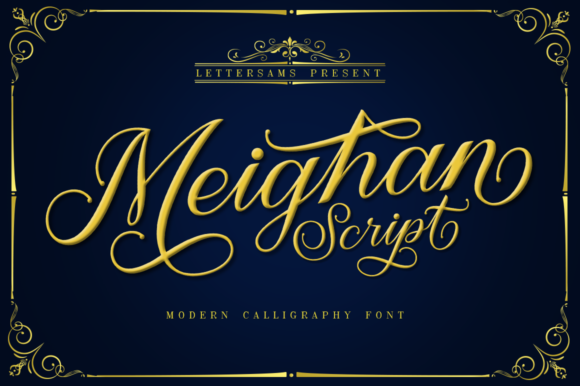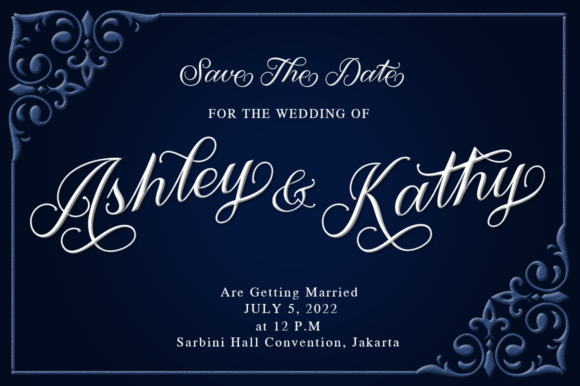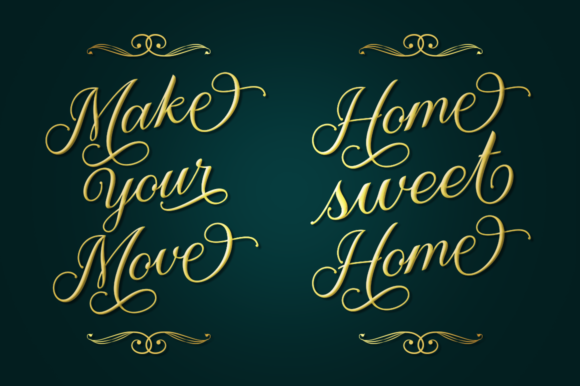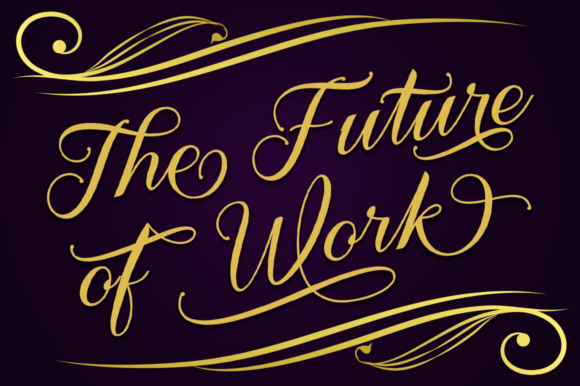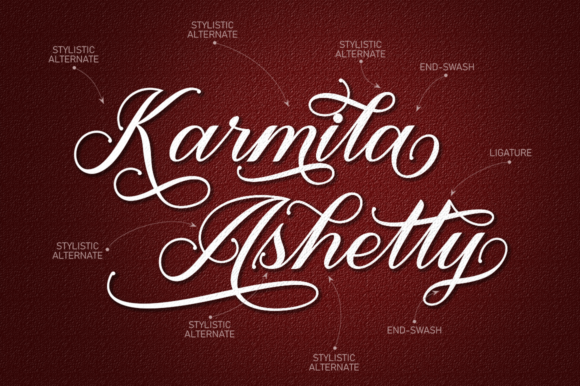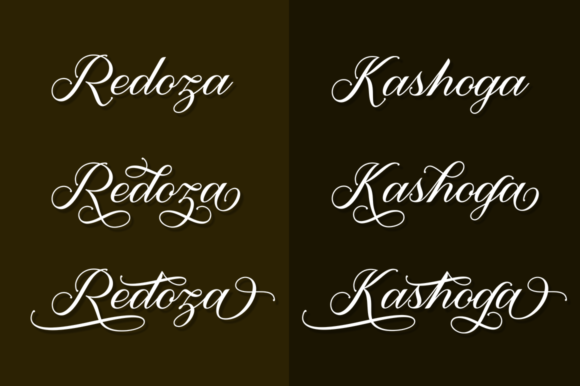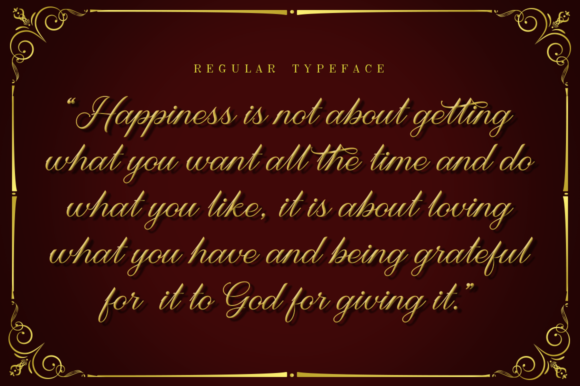
Meighan Script Font
About Meighan Script Font
The Meighan is a modern calligraphy font. This vintage script has a thick, elegant, and fun touch and can be used for logos, labels, wedding invitations, brands, t-shirts, letterhead, signboards, news, book covers, magazines, posters, badges, and much more!